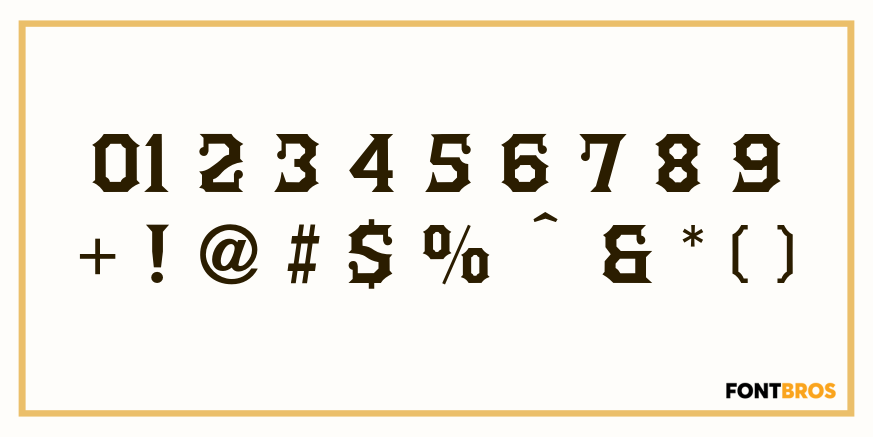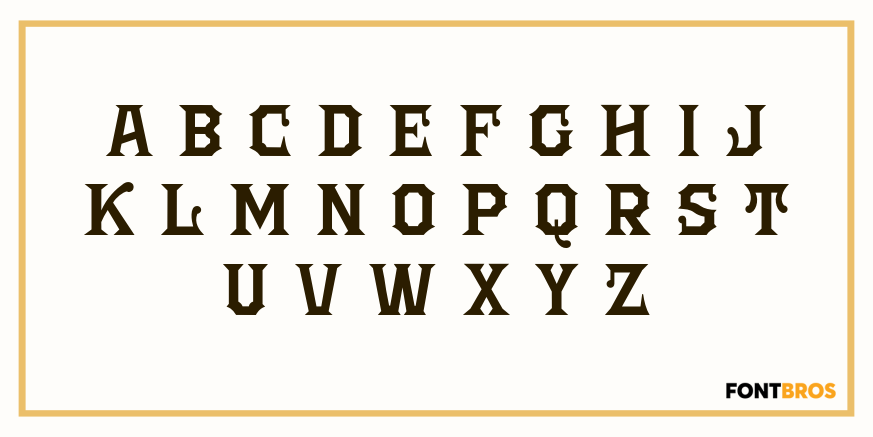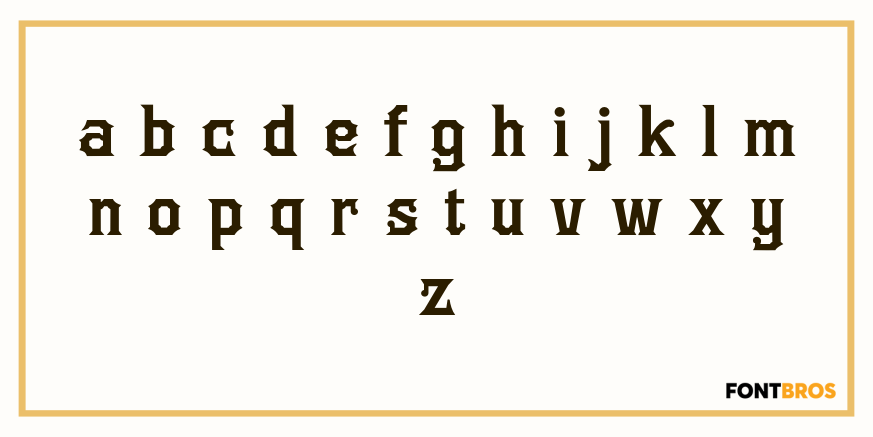
Gashouse Gang
This font was adapted from an old lettering book, circa 1900. The book got away from us many years ago, but we had made stats of all the potentially useful fonts.
Original had no lowercase or numerals, so we designed them.
Gashouse Gang by Solotype